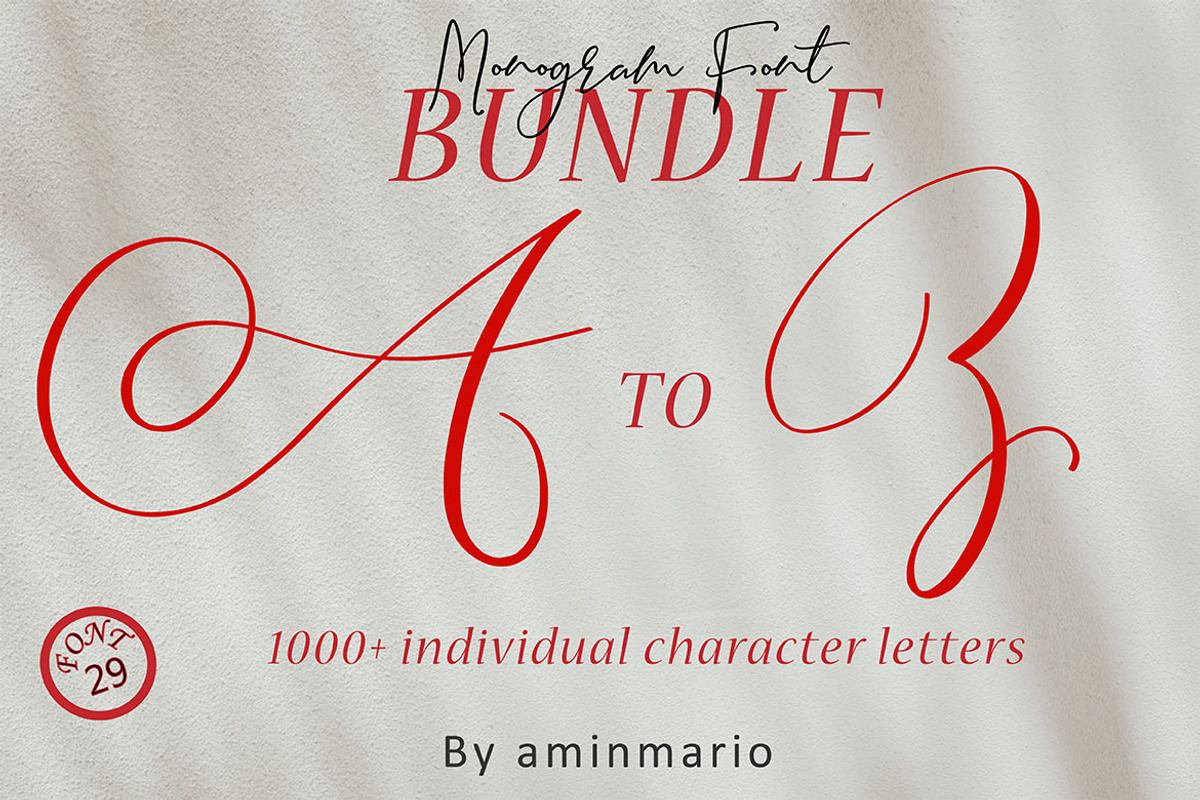
MONOGRAMS BUNDLE A to Z Font is perfect for wedding monograms, personal branding, logo design, embroidery projects, vinyl cutting, custom jewelry engraving, business cards, letterheads, luxury packaging, gift personalization, home decor items, and sophisticated branding applications.
MONOGRAMS BUNDLE A to Z Font is exciting because it offers a complete alphabet collection of elegant monogram designs that instantly elevate any project with timeless sophistication and personalized charm. This comprehensive bundle features meticulously crafted letterforms that combine classical typography principles with contemporary design aesthetics. Each character demonstrates exceptional attention to detail, ensuring professional results across all applications and media formats.
MONOGRAMS BUNDLE A to Z Font includes extensive font families: Classic Monogram Set, Ornate Decorative Style, Minimalist Modern Design, Vintage Inspired Collection, Script Monogram Variants, Bold Statement Letters, Delicate Feminine Styles, Masculine Strong Forms, Circular Frame Options, and Special Ornamental Elements, providing unlimited creative possibilities.
This premium monogram collection transforms ordinary initials into stunning visual statements through its sophisticated design approach and versatile styling options. MONOGRAMS BUNDLE A to Z Font Free Download enables designers and crafters to access professional-quality typography that creates memorable brand identities and personalized designs with lasting impact. The bundle's comprehensive coverage ensures perfect matches for any design aesthetic or client preference.
Professional designers and crafting enthusiasts appreciate MONOGRAMS BUNDLE A to Z Font for its exceptional versatility across traditional and digital applications, from elegant wedding stationery to modern corporate branding. Each monogram maintains perfect scalability, performing flawlessly whether used in large format signage or delicate jewelry engraving. The extensive character variations accommodate different style preferences while maintaining consistent quality and visual harmony throughout the collection.
The creative process behind MONOGRAMS BUNDLE A to Z Font involved studying historical monogram traditions while incorporating contemporary design innovations to create timeless yet fresh typography solutions. This balanced approach ensures each letter works beautifully as standalone monograms or combined elements, providing maximum flexibility for creative applications.